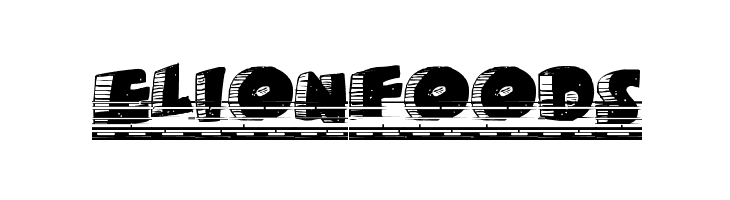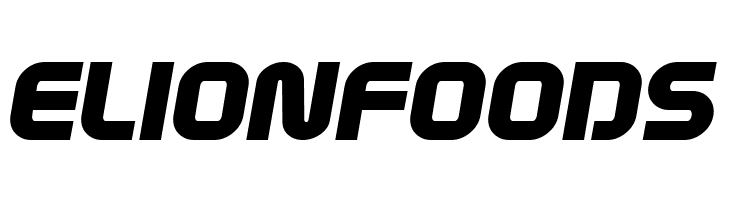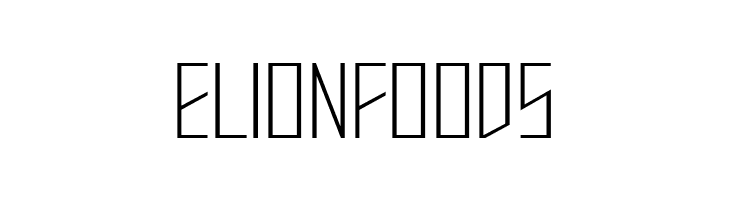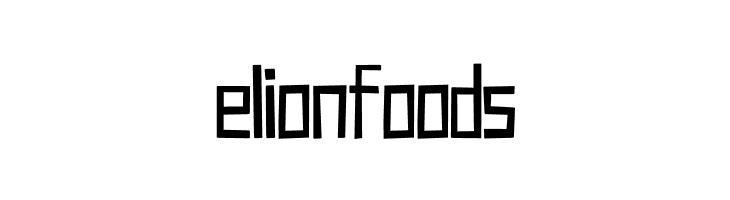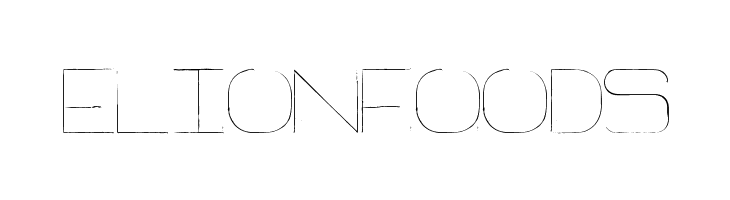
A bold, italicized font with a modern, dynamic style and strong geometric shapes.
A bold, decorative font with a pirate-themed, adventurous style.
A geometric, angular font with thin, hairline strokes and a modern, minimalist style.
A futuristic, geometric font with angular lines and a robotic feel.
A minimalist, geometric font with thin, precise lines and a modern aesthetic.